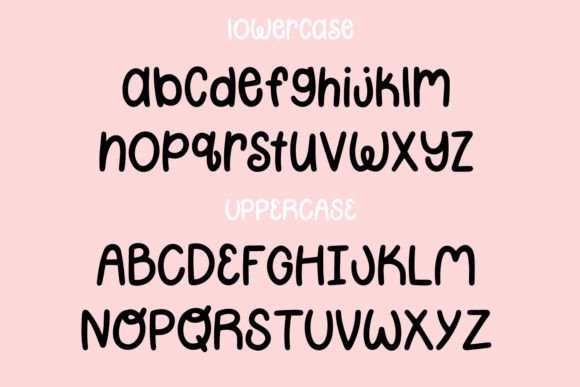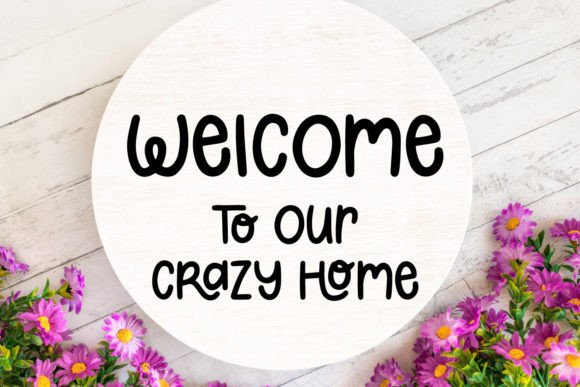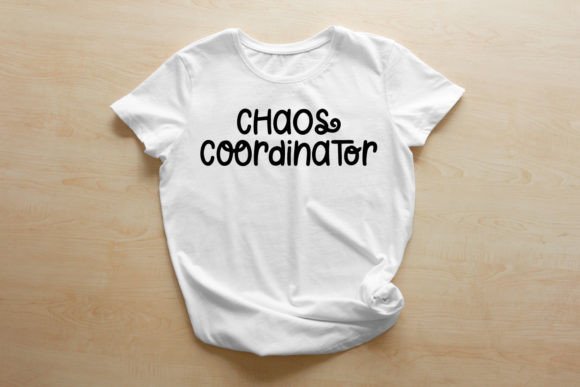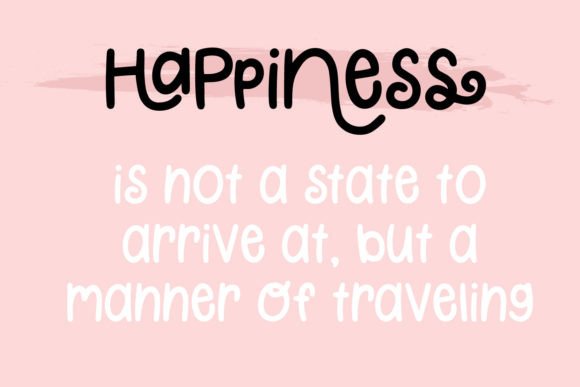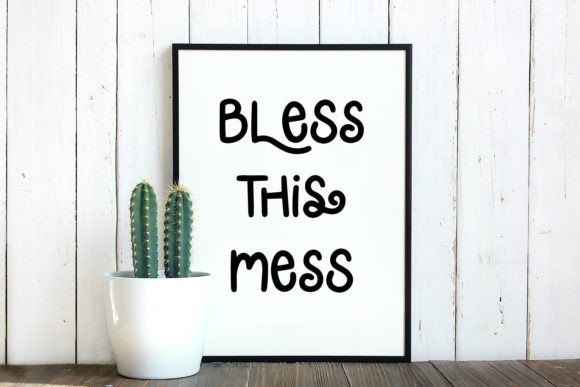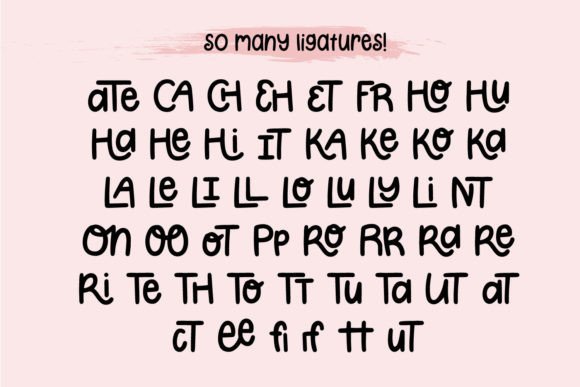
Introduction to Cute Lipstick Font
Cute Lipstick is a sweet and playful handwritten font.
The uppercase and lowercase letters are the same height for a super cute look This is a perfectly easy-to-read font.
Key Features of Cute Lipstick Font
Why Choose Cute Lipstick Font?
Cute Lipstick Font offers exceptional quality and versatility, making it a valuable addition to your design toolkit. Whether you’re creating for personal projects or commercial use, Cute Lipstick Font delivers professional results.